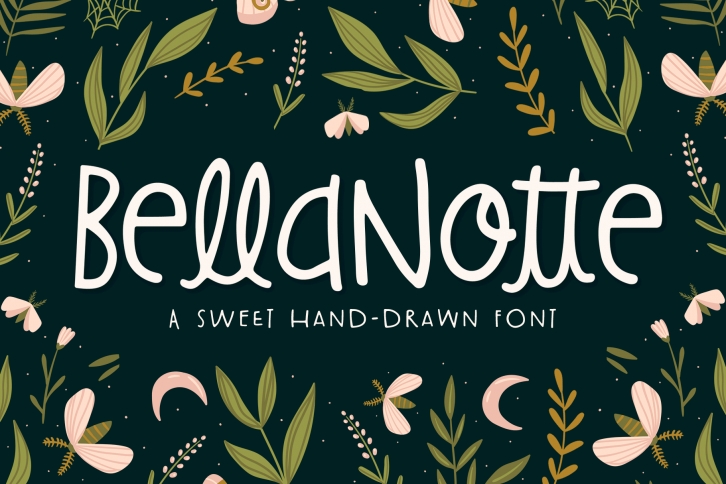
BellaNotte Font Download
BellaNotte is a great font that was designed by Denise Chandler. Imagine the amount of combinations you can create using this font! The archive is 10.81 MB and it was released on June 17, 2019. BellaNotte looks beautiful on wedding invitations, greeting cards, logos, posters, labels, t-shirt designs, logos, business cards and is perfect for use in ink or watercolor works, fashion, magazines, packaging and food menus, children's books and more!